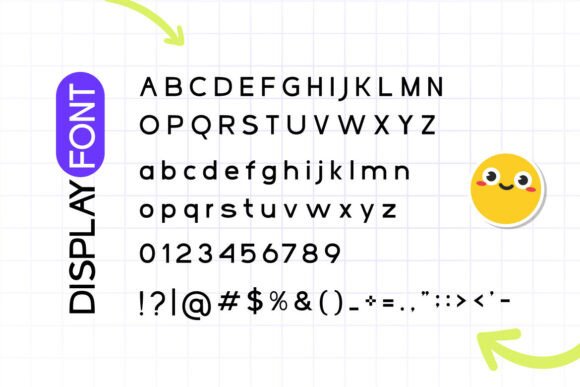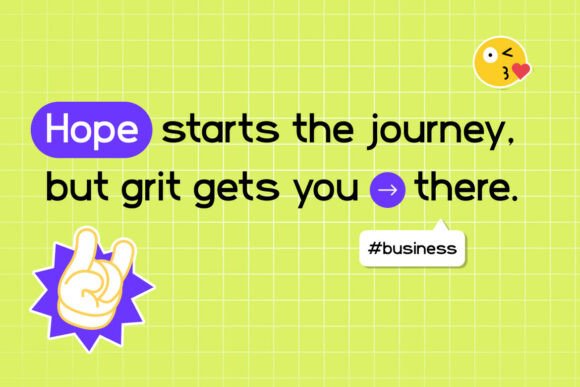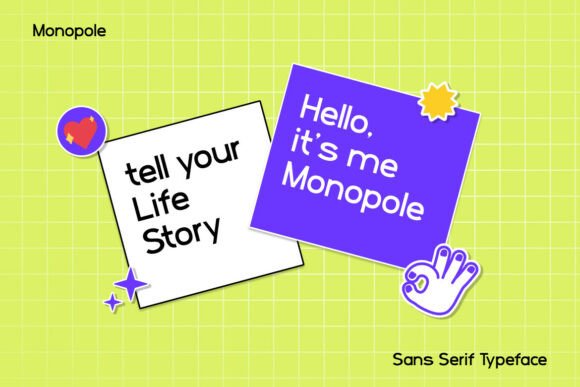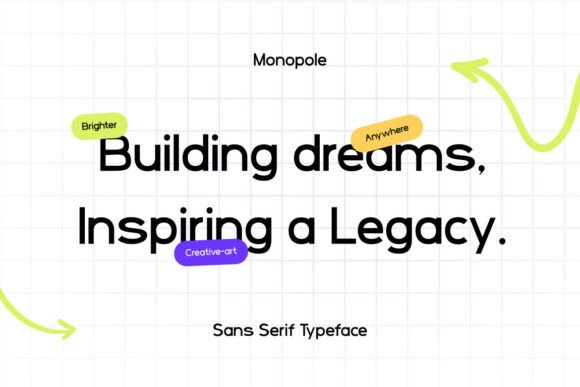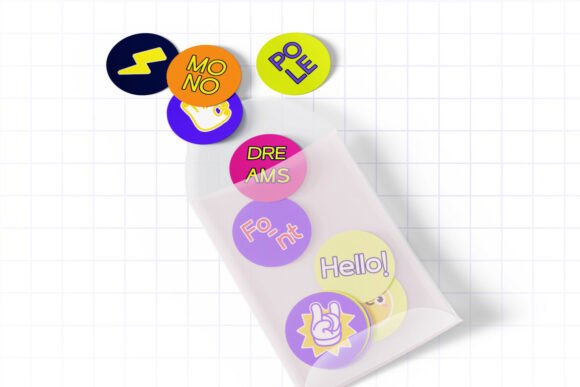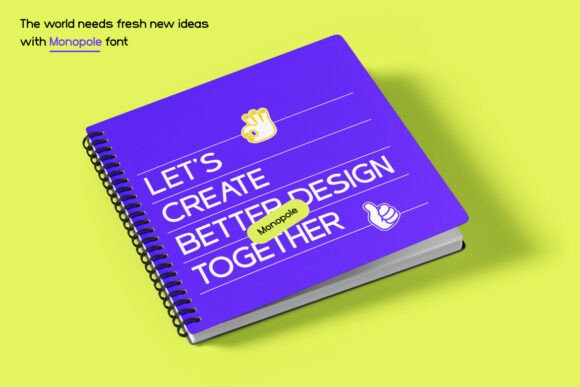
Introduction to Monopole Font Font
Fonts play a crucial role in design, and the Monopole Font font is a typeface that brings both character and versatility to any project. Whether you’re working on a branding project, a website, or a print design, the Monopole Font font offers a unique style that can elevate your work.
Monopole is a modern sans serif typeface designed with striking clarity and confident energy.
Its clean and bold structure evokes a professional yet approachable vibe, making it suitable for both expressive headlines and refined branding Crafted with sharp precision and smooth geometric alignment, Monopole balances technical elegance with aesthetic clarity.
Key Features of Monopole Font Font
Why Choose Monopole Font Font?
The Monopole Font font is more than just a typeface – it’s a design tool that helps you communicate your message with style and clarity. Its unique character set and versatile design make it suitable for a wide range of applications, from elegant invitations to bold headlines.
With its carefully crafted letterforms and balanced proportions, the Monopole Font font ensures readability and visual appeal across all mediums.
What makes Monopole Font font special?
The Monopole Font font stands out with its unique design, exceptional readability, and versatility across various design applications.